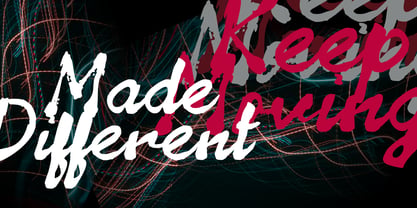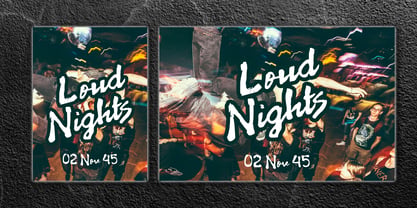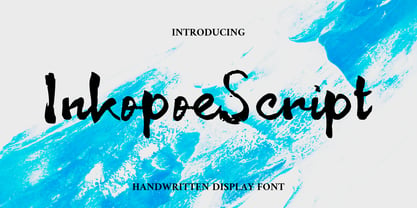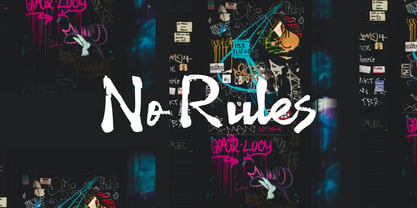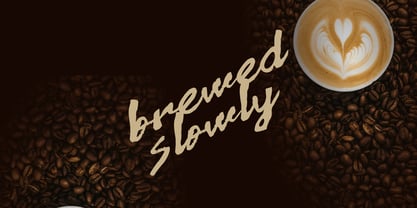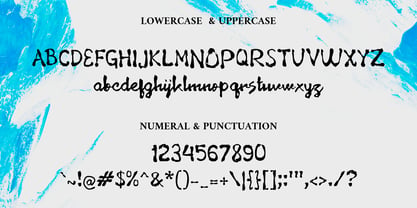
InkopoeScript
by Mei Suseno
The InkopoeScript Font Family was designed by Wahyu Eka Prasetya, Mei Suseno and published by Mei Suseno. InkopoeScript contains 3 styles and family package options. More about this family
This font features a bold handwritten brush style with expressive strokes and natural ink textures, creating an authentic and artistic look. Its rough yet balanced character gives a strong urban, indie, and modern aesthetic that feels energetic, creative, and full of personality. Designed to stand out, this typeface works perfectly for streetwear branding, music posters, album covers, social media content, creative campaigns, and lifestyle designs. The dynamic brush details bring a raw handmade feel while still maintaining good readability, making it ideal for eye-catching headlines and impactful visual compositions.
InkopoeScript